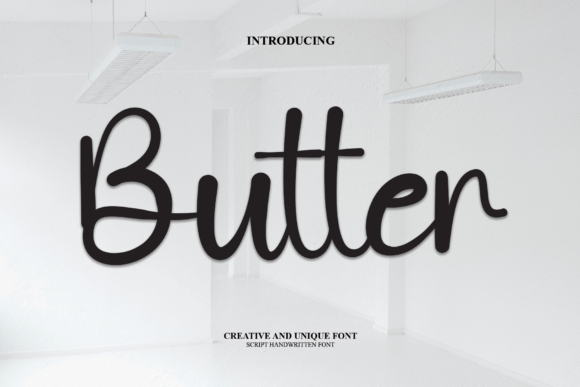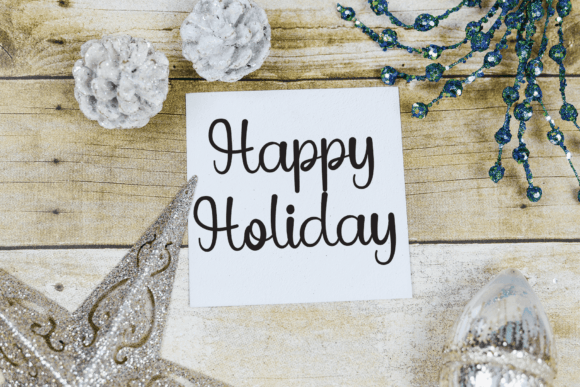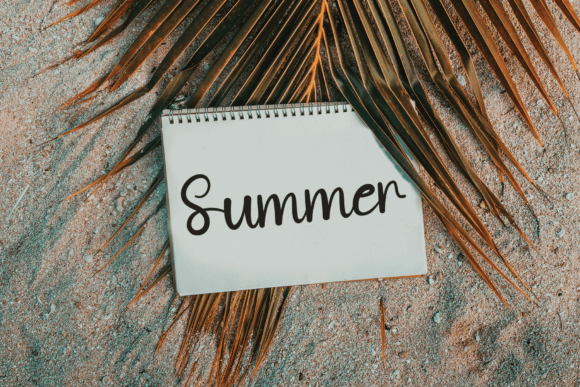
About Butter Font
“Butter” is a captivating script font that seamlessly blends modernity with a unique shape and a naturally flowing writing style. This font offers a versatile canvas for effortlessly creating beautiful typographic designs, making it an excellent choice for a range of applications, including branding, web design, editorial work, prints, crafts, and quotes.
The modern and distinctive shape of “Butter” imparts a contemporary and eye-catching allure to your designs. Its natural writing style adds an authentic touch, making it well-suited for a variety of creative projects. Whether you’re working on logotypes, wedding invitations, romantic cards, labels, packaging, or personalizing names, “Butter” infuses your designs with a touch of elegance.
The versatility of “Butter” is evident in its ability to adapt to different design contexts. It is an ideal choice for creating memorable and expressive logotypes that leave a lasting impact. Additionally, its charm makes it a perfect fit for designing wedding invitations, where a sense of sophistication and uniqueness is highly sought after.
“Butter” effortlessly brings your most creative ideas to life. From the world of branding to the intricacies of crafting romantic cards, this font adds a special and refined touch to your projects. Witness how it transforms your designs, making them visually appealing and authentically expressive.
Embrace the versatility and beauty of “Butter” as you embark on your creative journey. Whether you’re designing for digital platforms or crafting tangible items, this font serves as a reliable companion, ready to elevate your typographic designs to new heights.